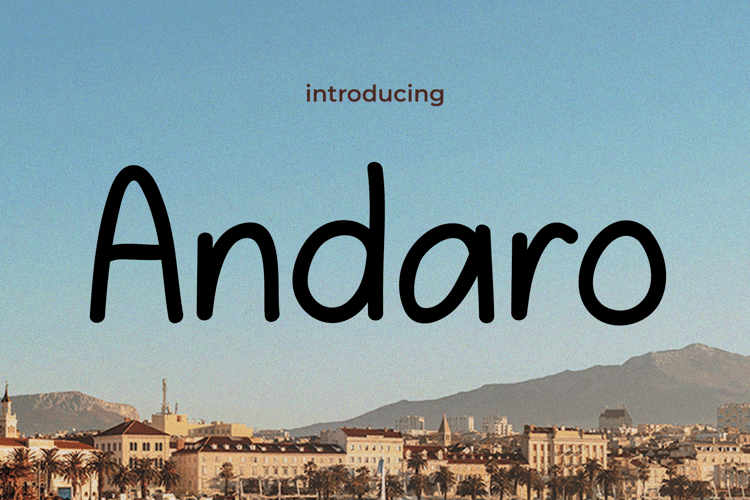
Andaro Font
Andaro – Step into a World of Vintage Charm and Girly Elegance
Unlock the beauty of a bygone era with Andaro Font, where vintage allure meets elegant femininity. Perfectly blending retro sophistication with a touch of girly charm, Andaro Font transports your designs to a time of timeless elegance.
With its graceful curves and intricate details, Andaro Font adds a nostalgic touch to any project, whether you’re creating vintage-inspired branding, elegant invitations, or charming social media graphics. Each letter exudes a sense of refinement and femininity, capturing the essence of vintage beauty in every stroke.
Embrace the enchanting world of vintage elegance with Andaro Font and let your designs stand out with irresistible charm and sophistication.